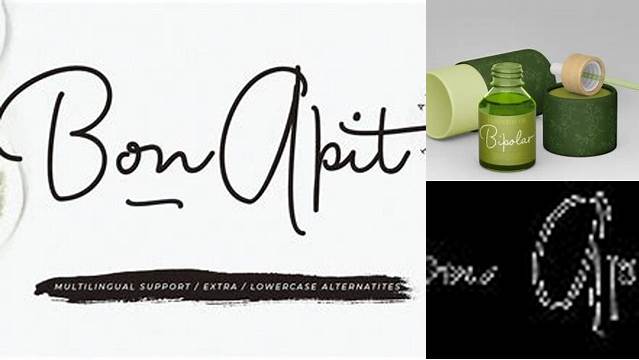
Bon Apit Font: Download Free & Elevate Your Designs!
Hey design enthusiasts! Are you looking for a font that's both stylish and accessible? Look no further, because we're diving headfirst into the world of the Bon Apit font! This article is your ultimate guide to the Bon Apit font free download, exploring its unique features, how to snag it, and how to use it to make your designs pop. Get ready to level up your typography game – let's get started!
Bon Apit Font: Unveiling the Charm and Versatility
Bon Apit isn't just another font; it's a statement. With its elegant curves and a touch of vintage flair, it's perfect for a wide range of design projects. Whether you're crafting a logo, designing a wedding invitation, or sprucing up your website, the Bon Apit font can add a touch of sophistication and personality. Its readability is also a key factor, making it suitable for both headlines and body text. The versatility of the Bon Apit font extends to various creative applications, including branding materials, social media graphics, and even print designs. This font allows designers to experiment with different styles, ranging from classic to contemporary. The unique character of each letter in the Bon Apit font makes every design feel premium. The artistic touch of this font captures the attention of anyone who sees it. When using the Bon Apit font, designers have the power to set the tone and express their own artistic vision. This font will make your designs stand out and leave a lasting impression on your audience. Its distinctive style is sure to make your projects memorable and visually appealing. The possibilities are endless when you have the Bon Apit font at your disposal. So, unleash your creativity and explore the full potential of this amazing font! This font can transform your ideas into eye-catching visuals. It offers a unique blend of elegance and playfulness that is hard to find in other fonts. This combination makes it a favorite among graphic designers and creative professionals. With the Bon Apit font, your designs will always be fresh and inviting. The font's distinctive style has the power to transform any design project into a work of art. The Bon Apit font also comes with a variety of special characters and ligatures, adding depth to your designs.
Bon Apit Font's Design and Aesthetics
The design of the Bon Apit font is a captivating blend of elegance and readability. Its carefully crafted letterforms boast smooth curves and refined details, resulting in a visually pleasing appearance. The font's aesthetic appeals to a wide audience, making it suitable for various design projects. This font's design gives a touch of sophistication and modernity. With its clean lines and balanced proportions, Bon Apit creates a harmonious visual experience. The font's design ensures that the text is easy to read, even in smaller sizes. The attention to detail in the design is reflected in every glyph, showcasing the font's artistic craftsmanship. The Bon Apit font offers a timeless quality that sets it apart from contemporary trends. This font's unique design makes it an ideal choice for those seeking to make a lasting impression. The aesthetic appeal of the Bon Apit font is enhanced by its stylistic versatility. This font's design allows for creative experimentation and personalization. This font's design captures the essence of modern typography. The Bon Apit font design provides a balance between creativity and functionality, ensuring that your designs are both beautiful and practical. This font's aesthetic features, combined with its versatility, give you the ability to turn your creative visions into reality. The design of this font also gives the designs an artistic look, making it stand out in any situation.
Bon Apit Font's Usage Across Design Mediums
The Bon Apit font shines across a variety of design mediums, bringing its distinctive character to each project. Whether you're working in print or digital, this font adapts seamlessly, enhancing the visual appeal of your creations. In print design, the Bon Apit font elevates the look of invitations, posters, and brochures, adding a touch of sophistication. Its clarity and elegance make it ideal for conveying important information in a stylish manner. When it comes to digital design, the Bon Apit font excels in websites, social media graphics, and presentations. The font’s legibility ensures your content is easily consumed on screens of all sizes. This versatility also makes it perfect for crafting eye-catching headlines and engaging body text. The Bon Apit font is easily adaptable for any project, ensuring that your brand's visual identity remains consistent. Furthermore, the font's clean lines and balanced proportions enhance user experience. The Bon Apit font is a fantastic choice for both professional and personal projects, making it a must-have tool for any designer. This font's adaptability and aesthetic appeal open up a world of creative possibilities. The Bon Apit font is a favorite among designers due to its adaptability and style. The font’s use will enhance every aspect of your work, making it a valuable addition to your design arsenal. This font is truly a great choice across all design mediums.
Conclusion: Embrace the Bon Apit Font for Your Designs!
So, there you have it! The Bon Apit font is a fantastic choice. It's elegant, versatile, and easy to use. We hope this guide has given you all the info you need to get started. Don't hesitate to download the Bon Apit font free download and start creating! Experiment with its features. Explore different design techniques. The Bon Apit font is your tool. It will help you in all your design work. Embrace the style and express yourself through your designs. Enjoy the creative journey! With the Bon Apit font, your designs are sure to stand out. Start creating unique and amazing designs. The Bon Apit font is your secret weapon. Get out there and create something amazing! Happy designing, and we can't wait to see what you create!